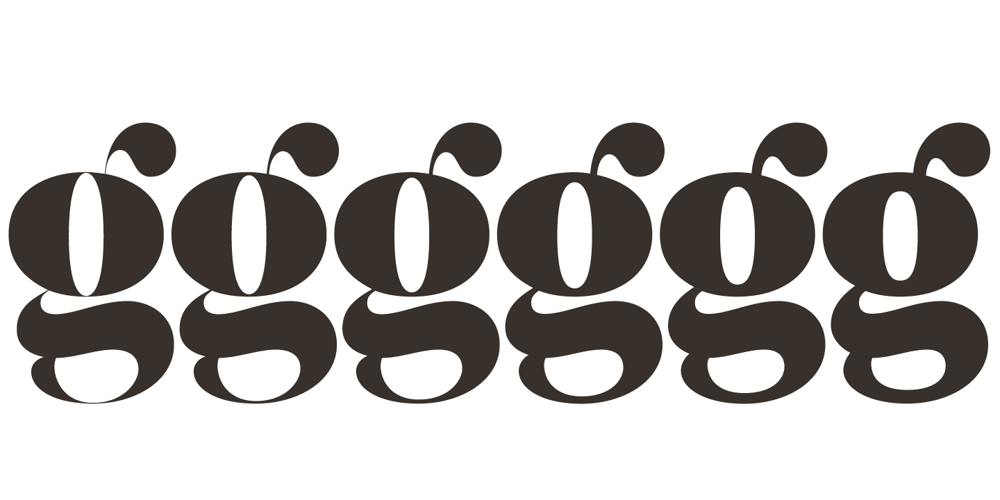
Grumpy
Grumpy font
Grumpy Font Family was designed by Tom Carnase, Tomi Haaparanta and published by Suomi. Grumpy contains 6 styles and family package options. An extreme headline font with six optical variants. Black 24 is loosely based on ITC Grouch (1970) by Tom Carnase. It has some 2000 hand-adjusted kerning pairs for TNT (that’s Tight, Not Touching), a very popular type treatment from the seventies and eighties. Take your pick, or get them all, so you don’t have to buy another one later on.